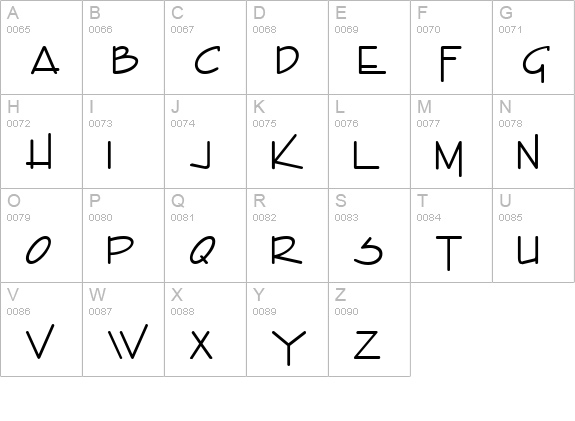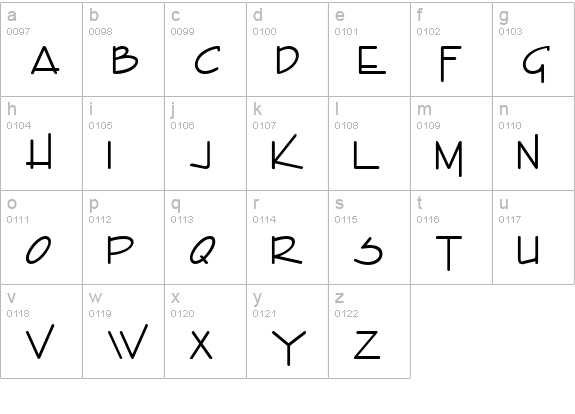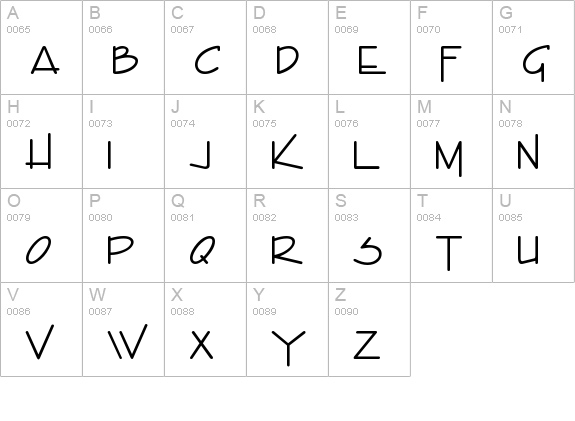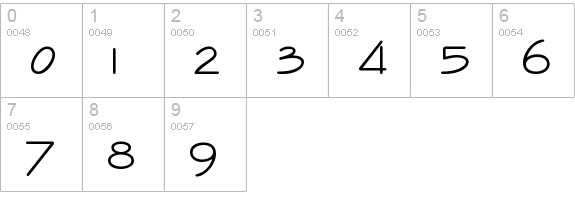
Enview Light Bold is a refined, elegant variant in the Enview typeface family \xE2\x80\x94 well suited to elegant body text, refined sub-headings, and luxury branding.
Enview Light Bold font is a sleek and modern typeface that exudes elegance and sophistication. Its clean lines and bold strokes make it perfect for a wide range of design projects, from branding to editorial design. The light weight of the font adds a touch of delicacy while still maintaining a strong presence on the page. What sets Enview Light Bold font apart is not just its design, but also its accessibility. This high-quality font is available for free download at FontsMarket.com, making it a valuable addition to any designer's toolkit. Whether you're working on a website, a poster, a logo, or any other project that requires a touch of class, Enview Light Bold font is sure to elevate your design to the next level. Download it today and see for yourself the impact it can have on your work.